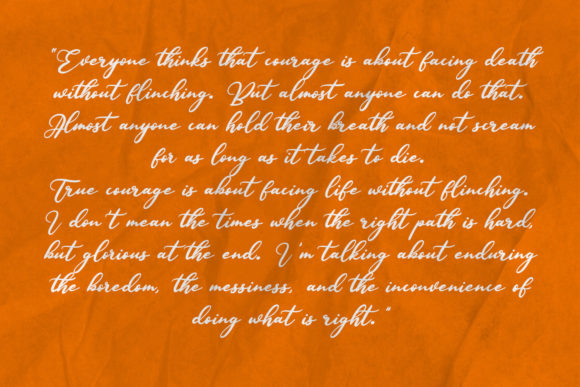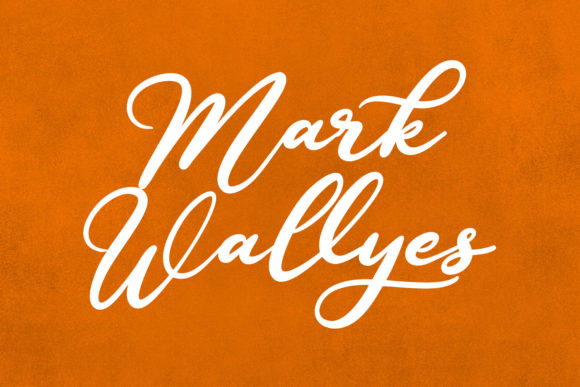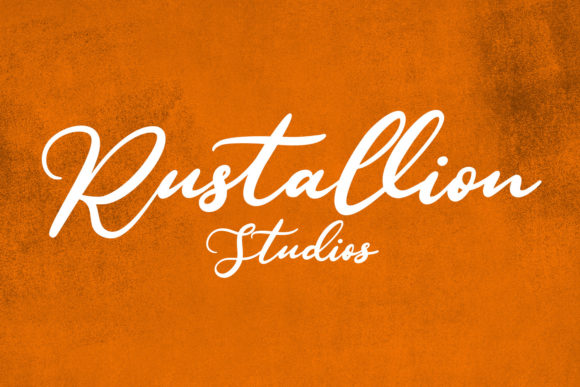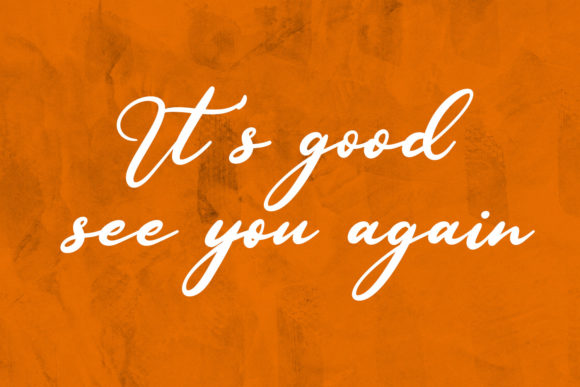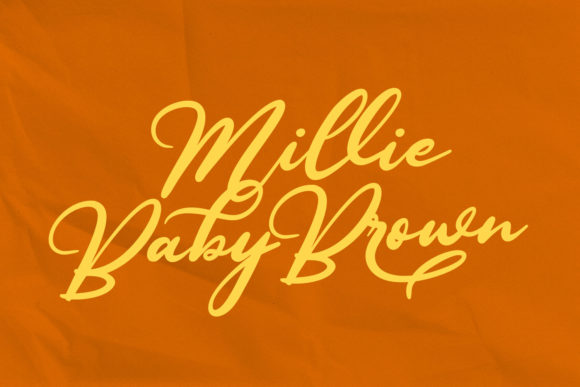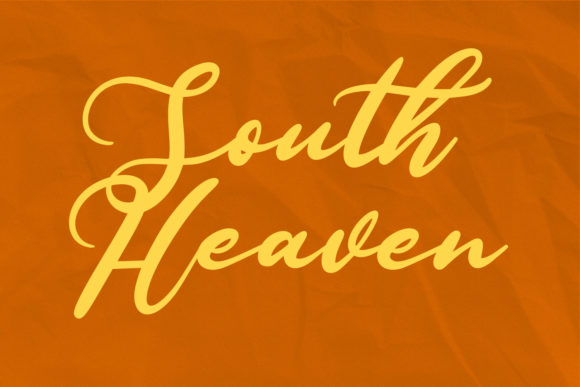
Introducing Chasing Sun Font: Elevate Your Designs with Elegance
In the world of typography, a font can make or break a design. For designers and crafters seeking to add a touch of sophistication and timelessness to their projects, Chasing Sun Font is an exceptional choice. This elegant script font boasts a contemporary atmosphere, impeccable form, and a balanced aesthetic that is sure to enhance the beauty of your creations.
The Inspiration Behind Chasing Sun Font
Chasing Sun Font draws inspiration from classic calligraphy, a traditional art form that has been perfected over centuries. The font’s creator aimed to capture the essence of timeless calligraphy, infusing it with a modern twist to make it relevant for today’s designs. The result is a font that exudes elegance and sophistication, perfect for projects that demand a high level of refinement.
Key Features of Chasing Sun Font
So, what sets Chasing Sun Font apart from other script fonts? Here are some of its key features:
- Balanced and Varied: Chasing Sun Font strikes the perfect balance between thin and thick lines, creating a visually appealing effect that adds depth and interest to your designs.
- Contemporary Atmosphere: While inspired by classic calligraphy, Chasing Sun Font has a distinctly modern feel that makes it suitable for a wide range of design applications.
- Impeccable Form: Each letterform in Chasing Sun Font has been carefully crafted to ensure that it is not only aesthetically pleasing but also highly legible.
Use Cases for Chasing Sun Font
Chasing Sun Font is a versatile typeface that can be used in various design projects, including:
- Branding and Logo Design: Add a touch of elegance to your brand identity with Chasing Sun Font, perfect for luxury brands, beauty products, and high-end services.
- Wedding and Event Design: Create stunning wedding invitations, stationery, and event materials with Chasing Sun Font, guaranteed to impress your clients and guests.
- Packaging Design: Elevate your product packaging with Chasing Sun Font, ideal for premium products, cosmetics, and gourmet food items.
- Digital Design: Use Chasing Sun Font in your digital projects, such as website headers, social media graphics, and email marketing campaigns, to add a level of sophistication and professionalism.
Tips for Using Chasing Sun Font Effectively
To get the most out of Chasing Sun Font, consider the following tips:
- Pair with Contrasting Fonts: Combine Chasing Sun Font with a clean, sans-serif font to create visual interest and hierarchy in your designs.
- Experiment with Colors: Chasing Sun Font looks stunning in a range of colors, from metallic gold and silver to rich jewel tones.
- Pay Attention to Spacing: Ensure that your text is properly spaced to maintain readability and visual flow.
Chasing Sun Font is an exceptional addition to any designer’s toolkit, offering a unique blend of elegance, sophistication, and versatility. Whether you’re working on a branding project, wedding design, or packaging, this beautiful script font is sure to elevate your creations and leave a lasting impression. With its impeccable form, balanced aesthetic, and contemporary atmosphere, Chasing Sun Font is the perfect choice for designers and crafters seeking to add a touch of timeless class to their work.